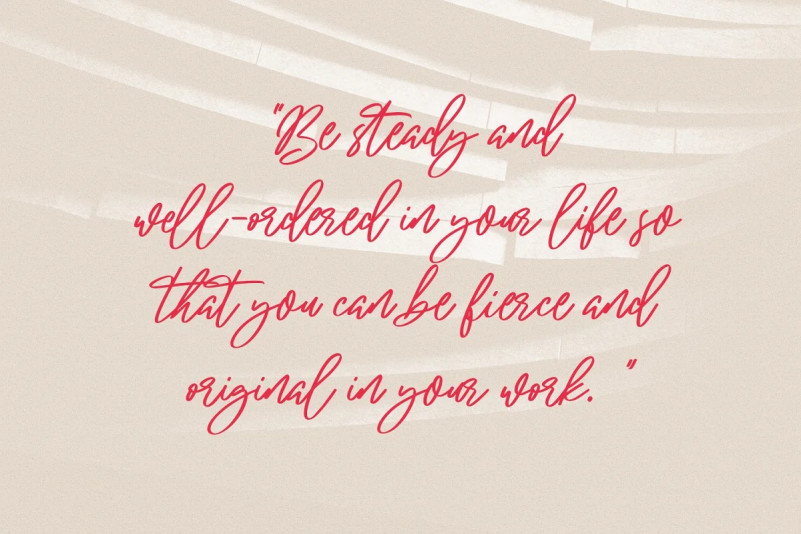
Soulections Font
Soulections Script Font is a Signature Script font. With bold stroke, slanted and fun character with a bit of ligatures. To give you an extra creative work. Soulections font support multilingual more than 100+ language. This font is good for logo design, Social media, Movie Titles, Books Titles, a short text even a long text letter and good for your secondary text font with sans or serif. Make a stunning work with Soulections font.